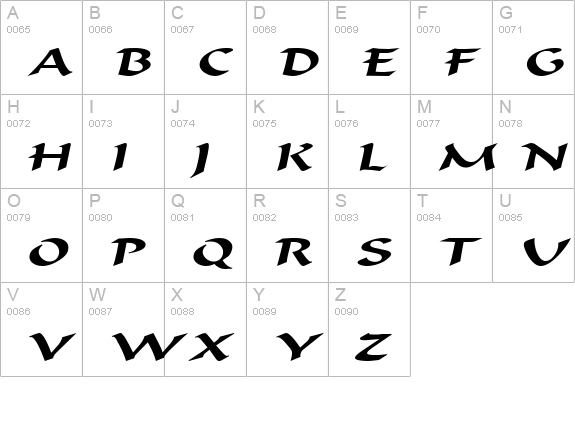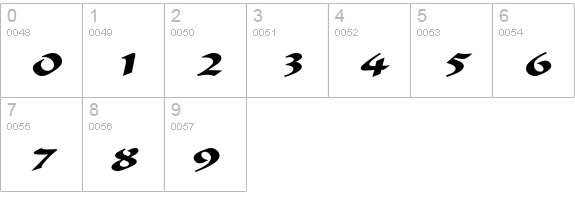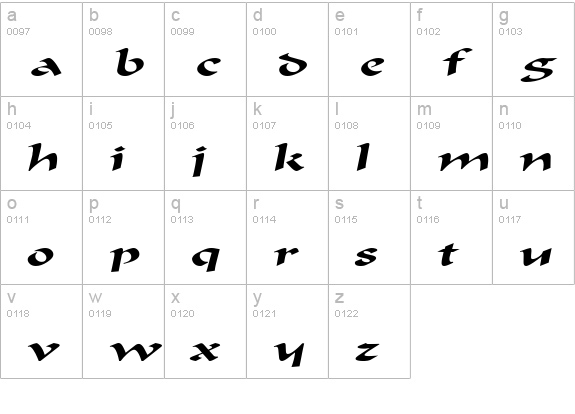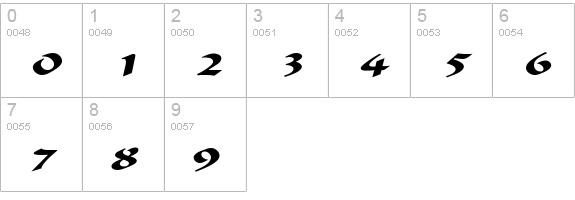
Flat Brush Extended Italic Font Details
Flat Brush Extended Italic is a distinctive, extended-width, italic variant in the Flat typeface family \xE2\x80\x94 well suited to design and typography projects.
The Flat Brush Extended Italic font is a modern and stylish typeface that exudes elegance and sophistication. Its sleek and smooth design features elongated brush strokes that give it a unique and eye-catching appearance. Perfect for adding a touch of flair to any project, this font is ideal for branding, advertising, and creative design work. What's more, the Flat Brush Extended Italic font is available for free download at FontsMarket.com. This means you can easily access this stunning font and use it in your projects without any cost. Whether you're a professional designer or a casual user looking to elevate your work, this font is sure to impress with its bold and dynamic style. Download the Flat Brush Extended Italic font today and take your designs to the next level!